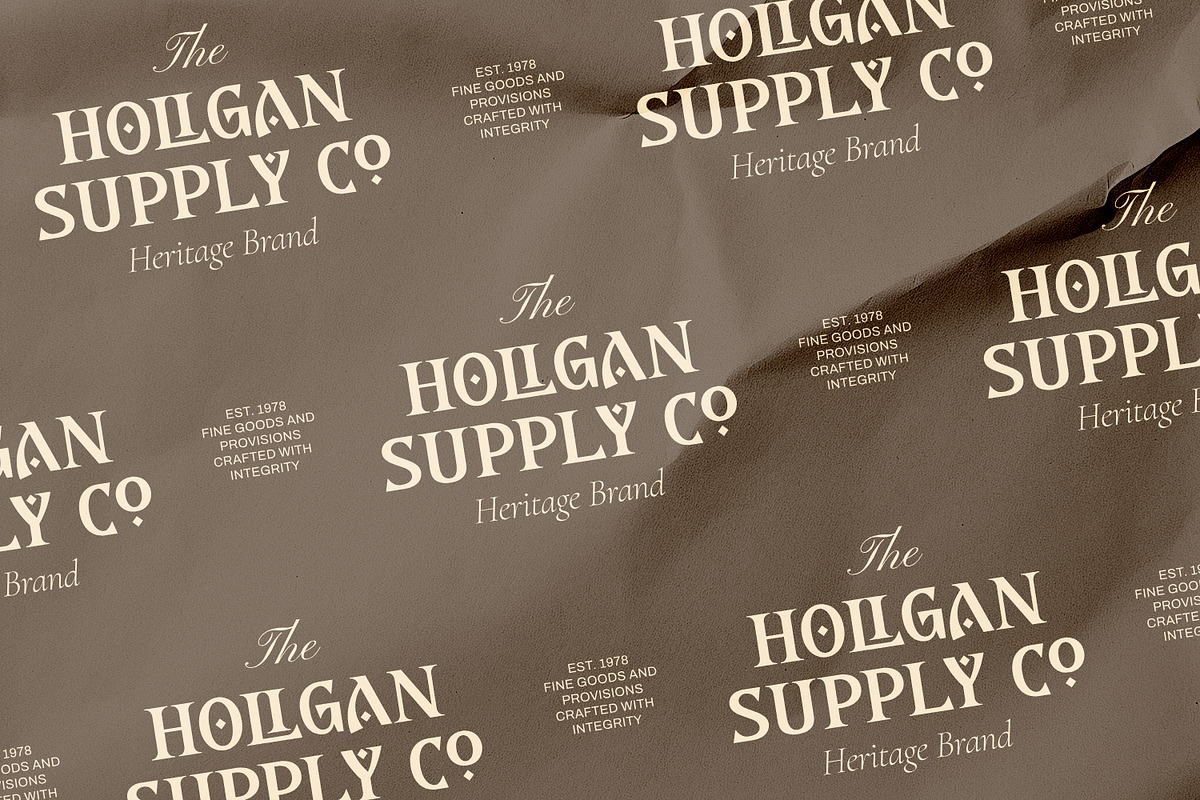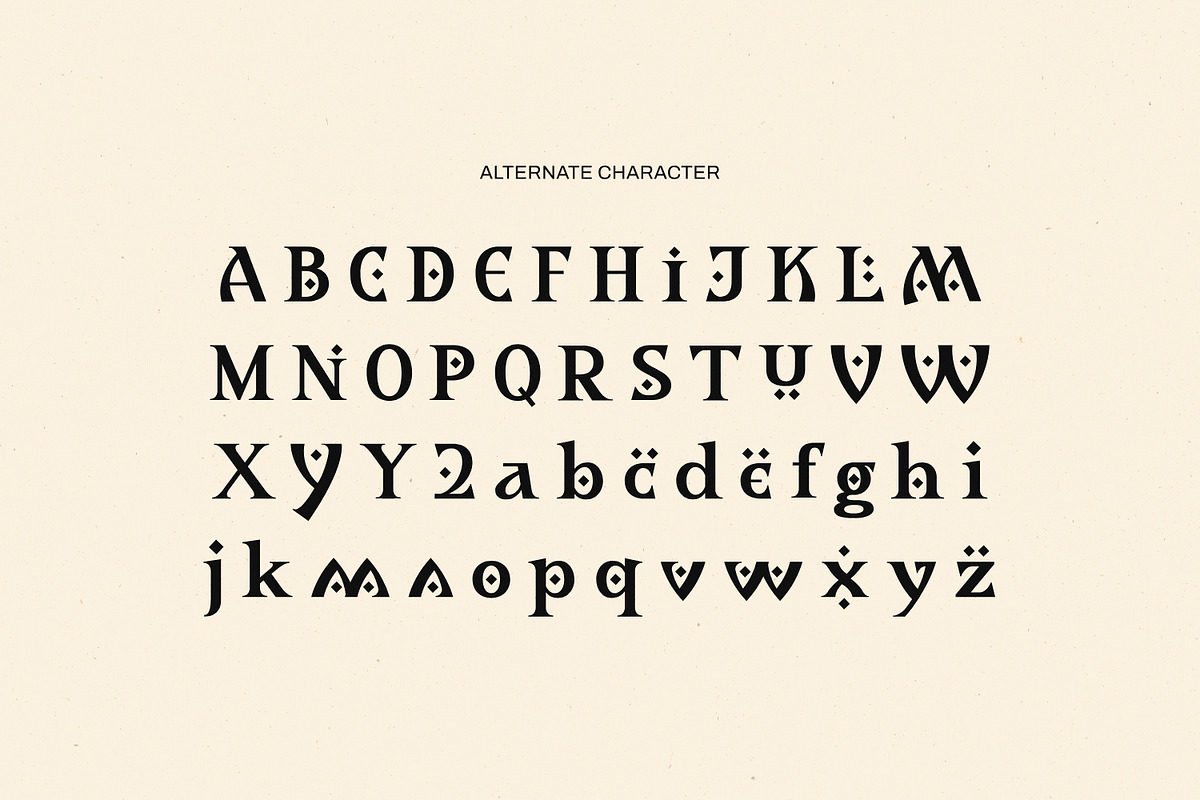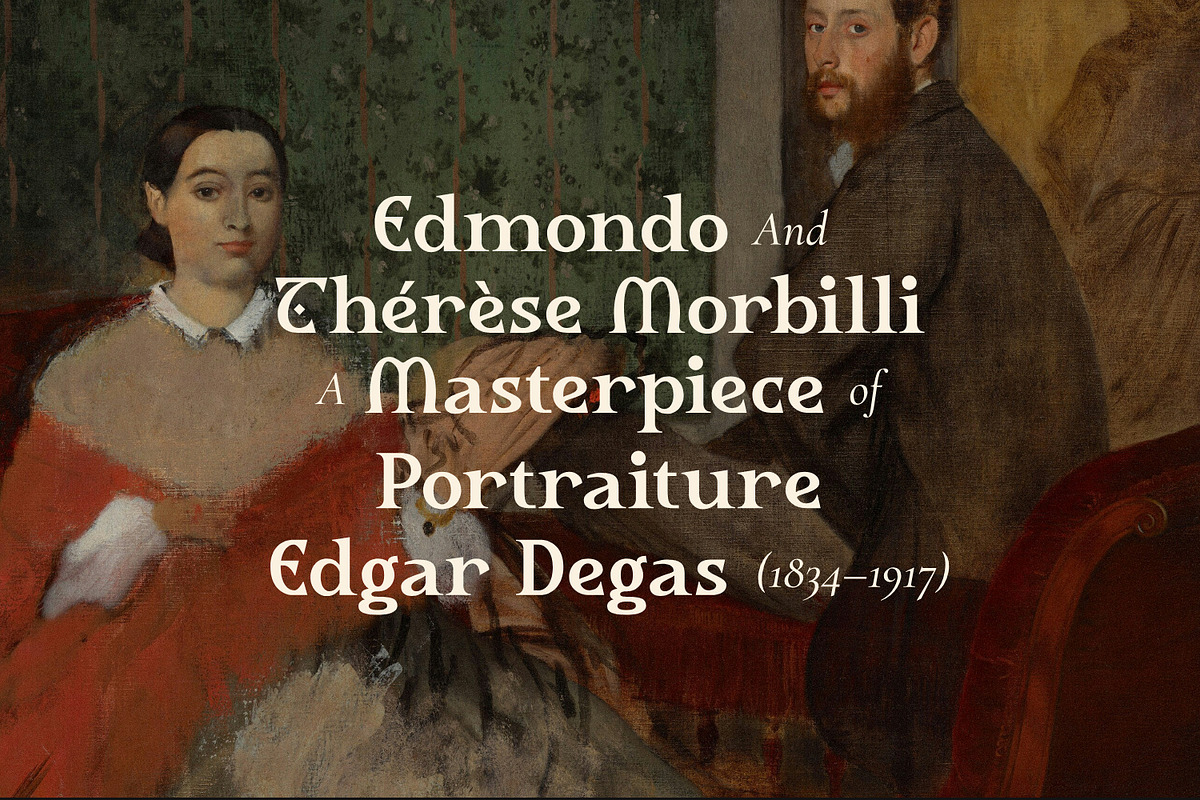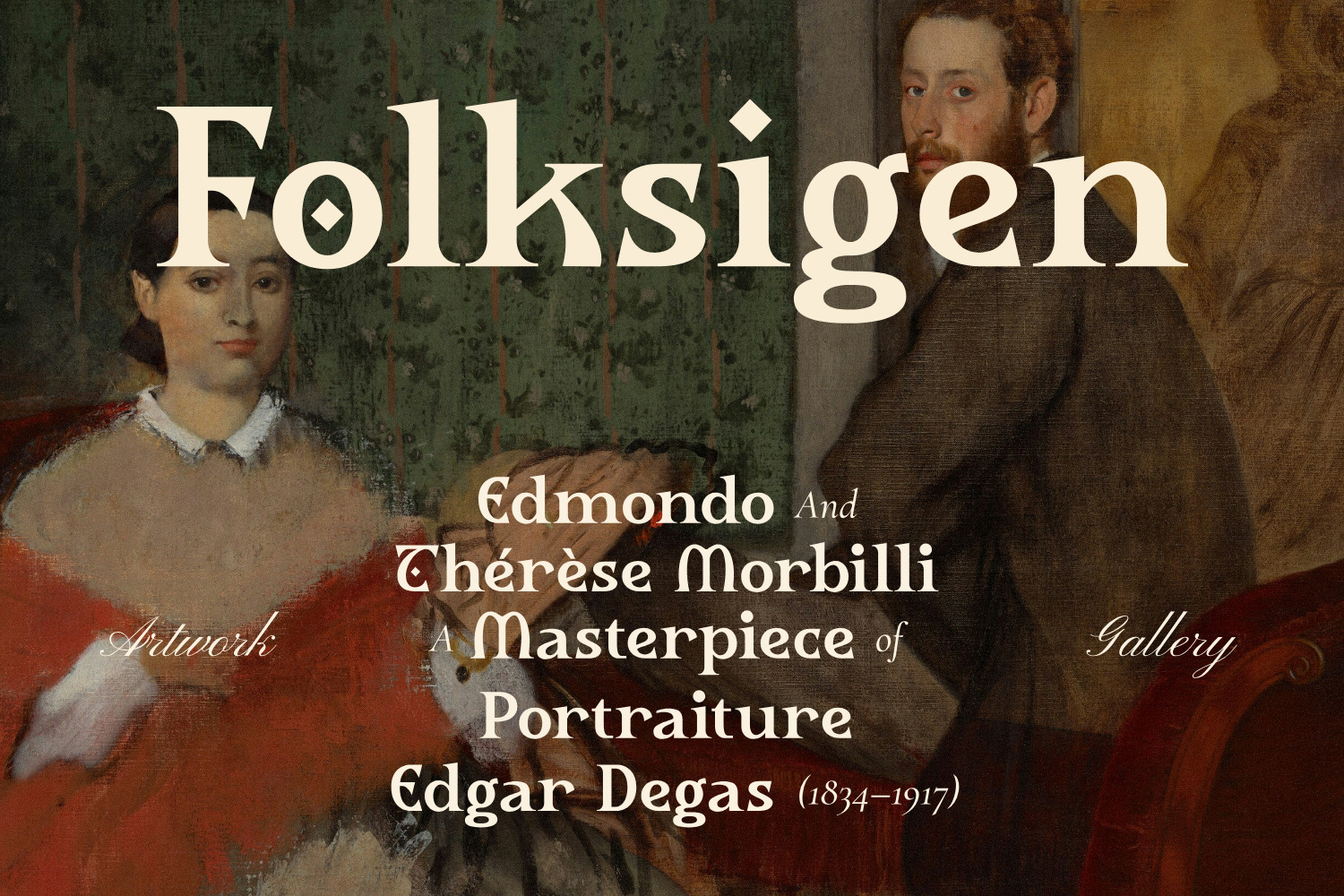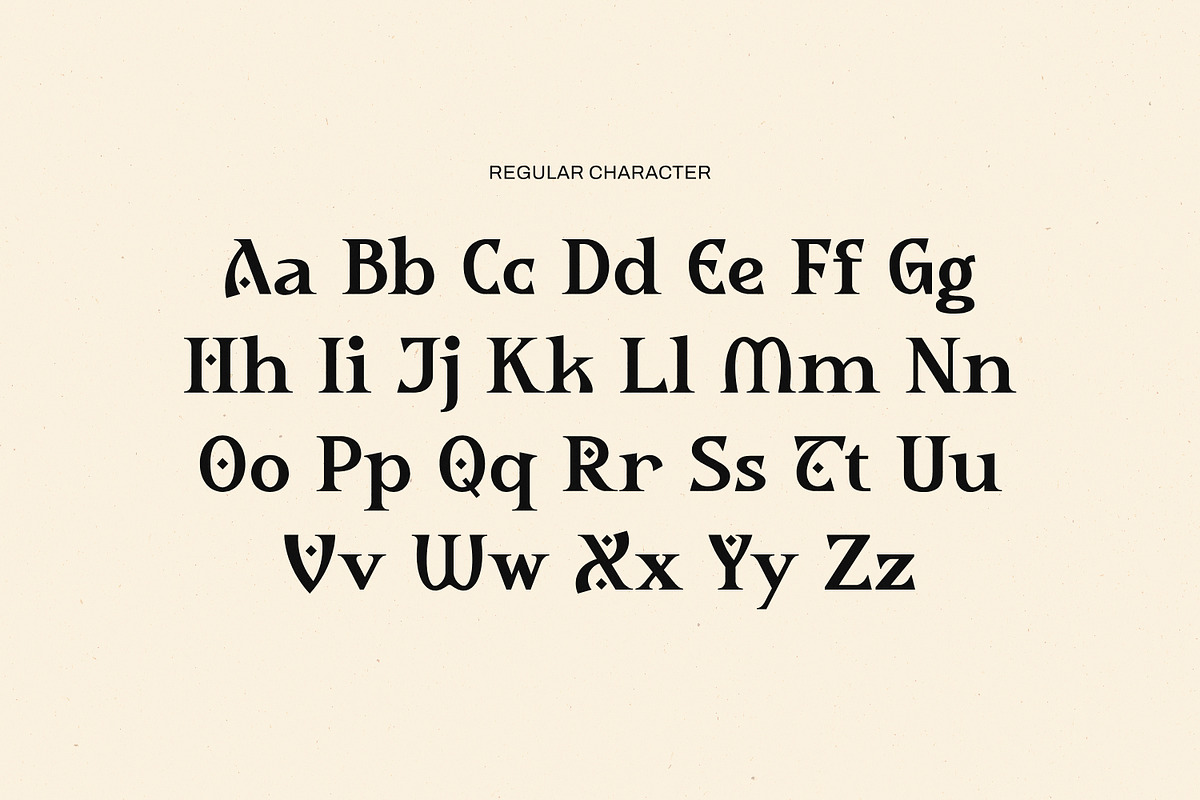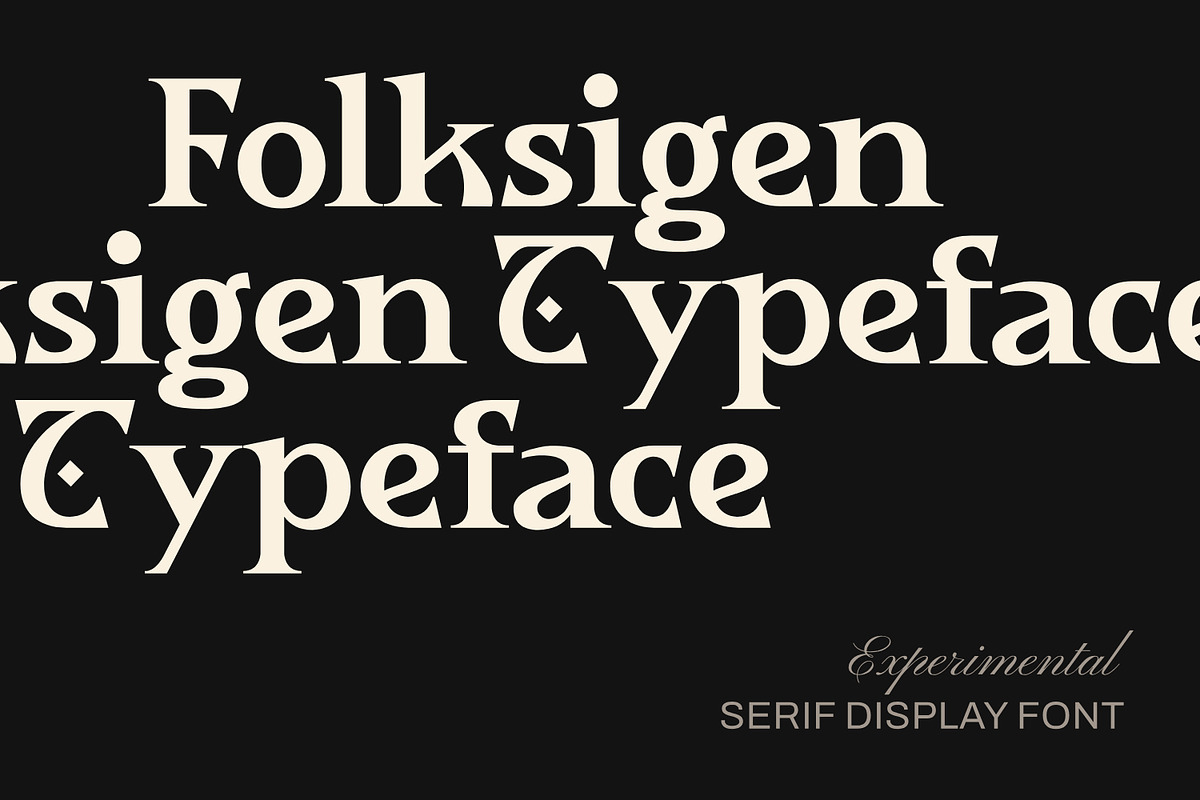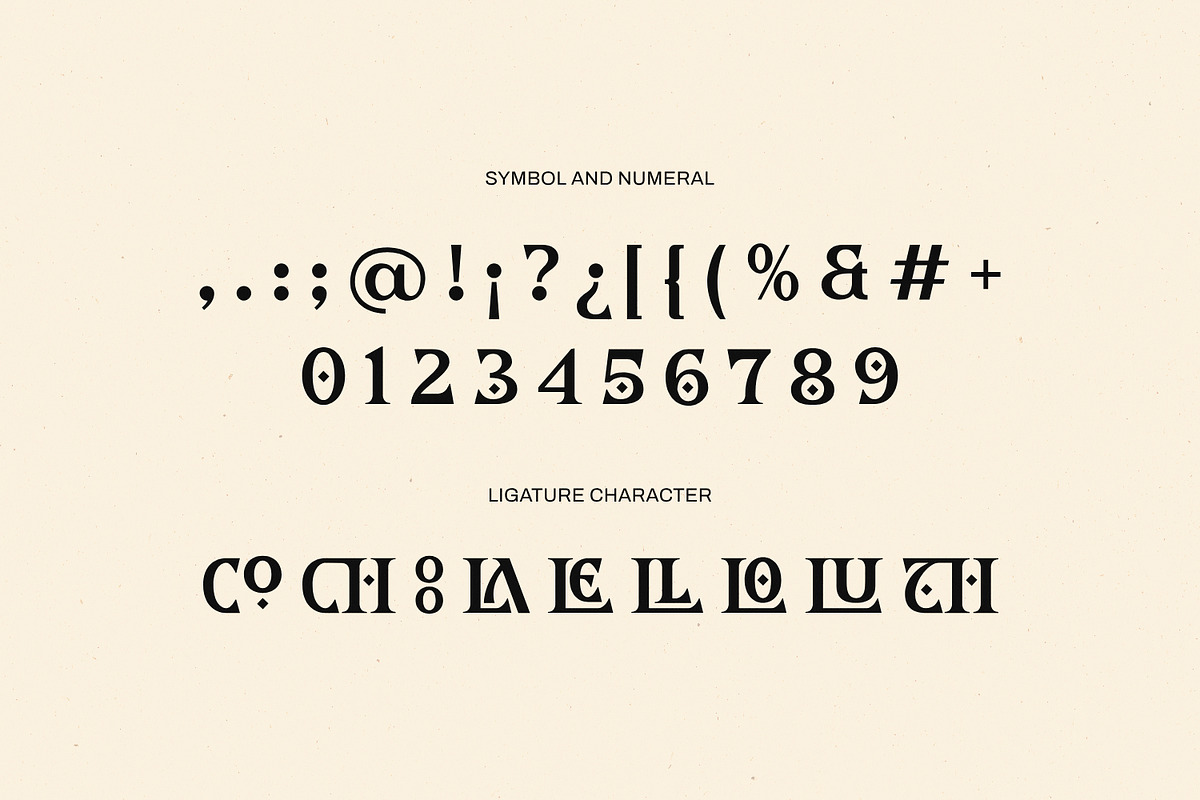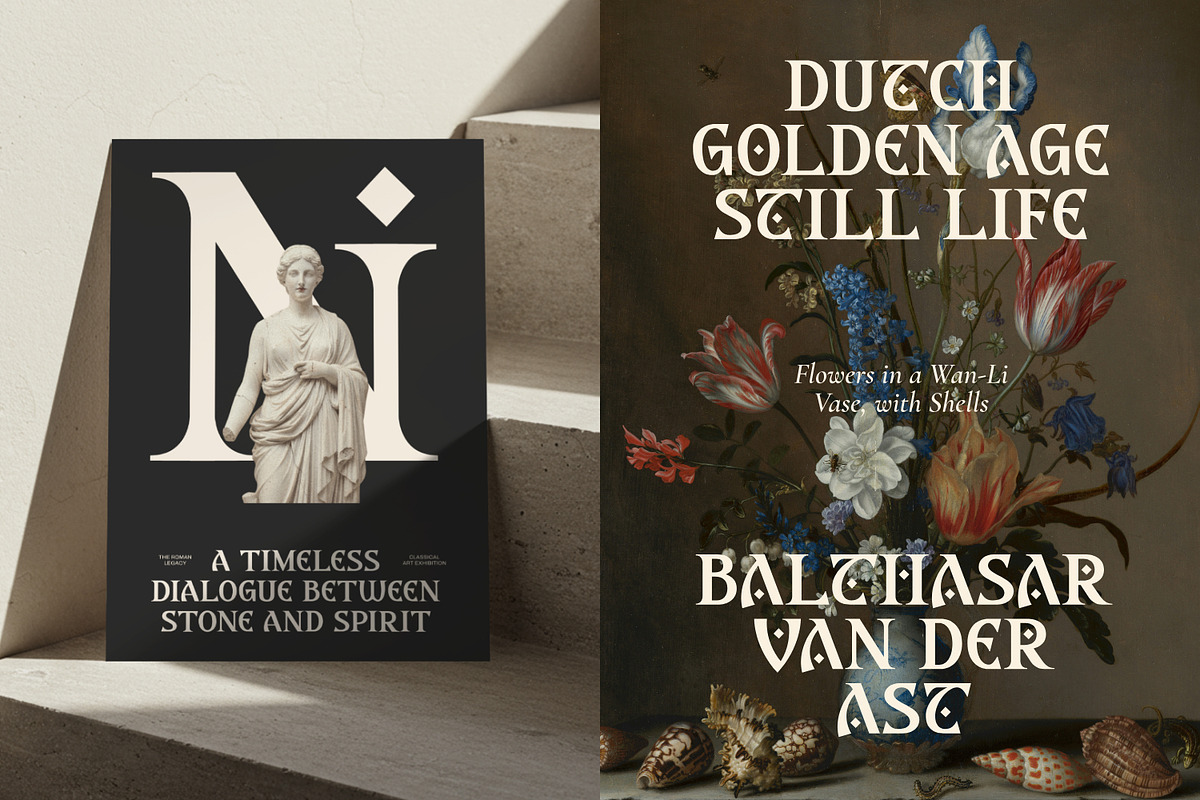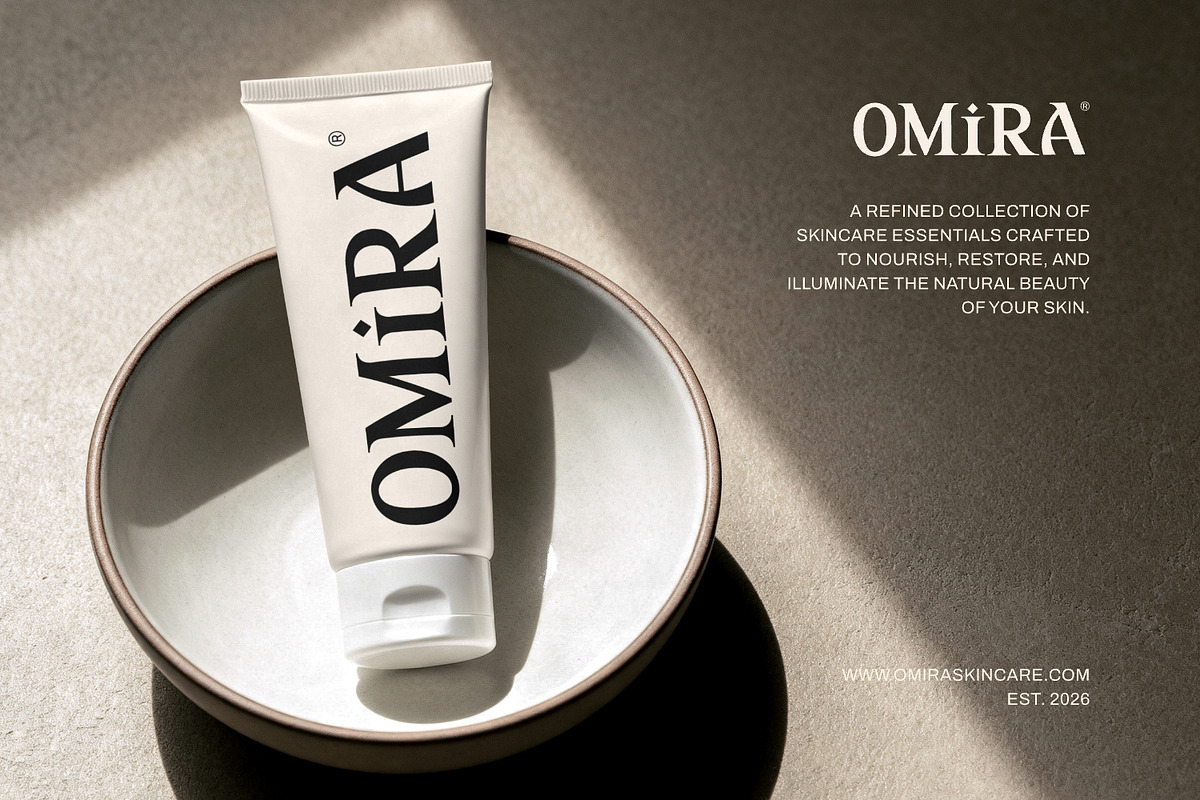
Folksigen - Display Serif Font
Folksigen is a versatile mixed-style serif typeface that blends upright roman forms with flowing italic alternates in a single font. Characterized by distinctive geometric diamond accents, sharp serifs, and artistic alternate glyphs, it brings an intriguing balance of historical folk charm and contemporary display aesthetics. Its bold visual contrast and expressive character options make it a standout choice for high-impact titles, editorial artwork, and luxury product branding. Whether you are creating vintage-inspired heritage logos, museum exhibition posters, or high-end cosmetic packaging, Folksigen delivers a unique, captivating presence to every creative project.
- Ligatures and alternate characters
- Numerals, punctuation, symbols